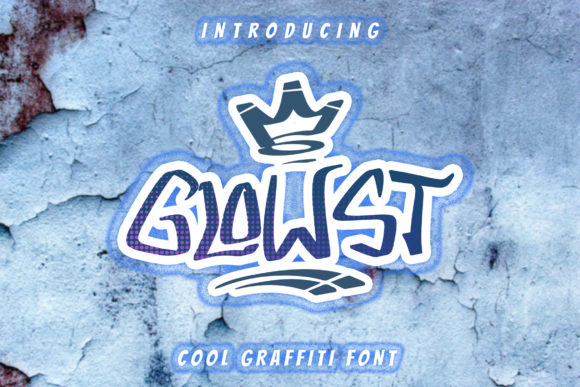
Prepare to be mesmerized by Glowst, the font that will illuminate your designs with its vibrant graffiti-inspired style! Every letter, meticulously crafted with a touch of urban flair, exudes a raw energy that will turn your projects into masterpieces.
Calling all creatives, designers, and art enthusiasts! Glowst is not just a font; it's an artistic companion that will bring your visions to life. Its captivating characters possess a personality that will make your words dance off the page. Let Glowst add an electrifying spark to your posters, logos, social media posts, and more, leaving an unforgettable mark on your creations.
With Glowst as your weapon of choice, your designs will transcend the ordinary and enter the realm of the extraordinary. Its quirky and unique characters stand ready to transform your projects into true works of art. It's a font that encourages self-expression and pushes the boundaries of creativity, giving you the freedom to make a statement that resonates with the world.
Don't settle for the mundane. Embrace the artistic revolution with Glowst! Dive into a world where imagination knows no bounds, where every design becomes a masterpiece, and where your passion for art takes center stage. Let Glowst be the catalyst for your creative journey and witness the magic unfold before your very eyes.